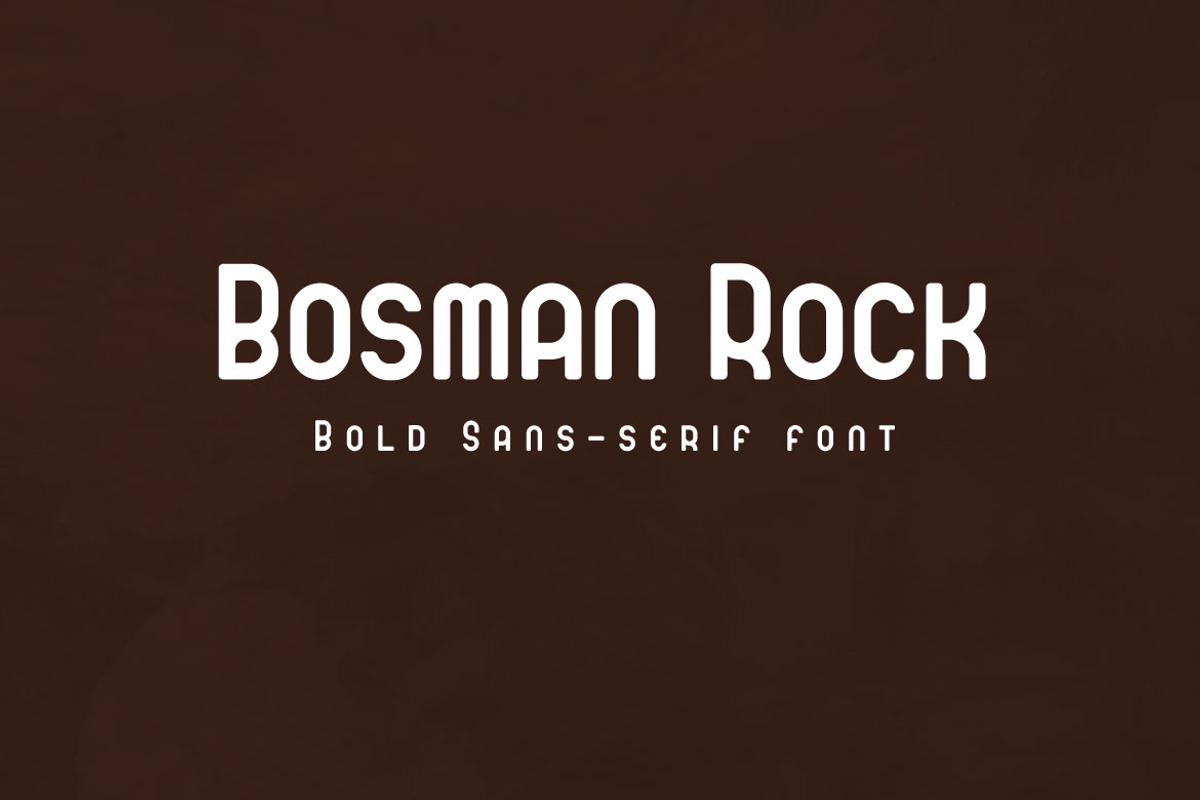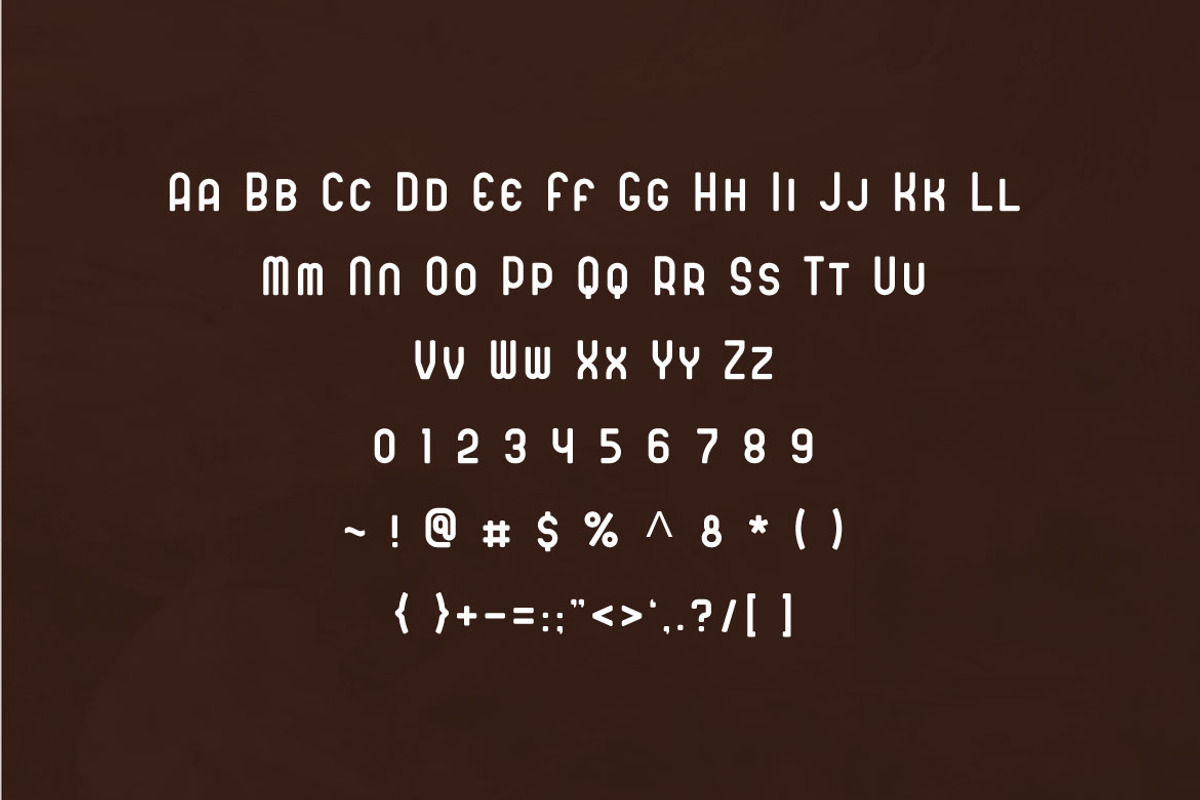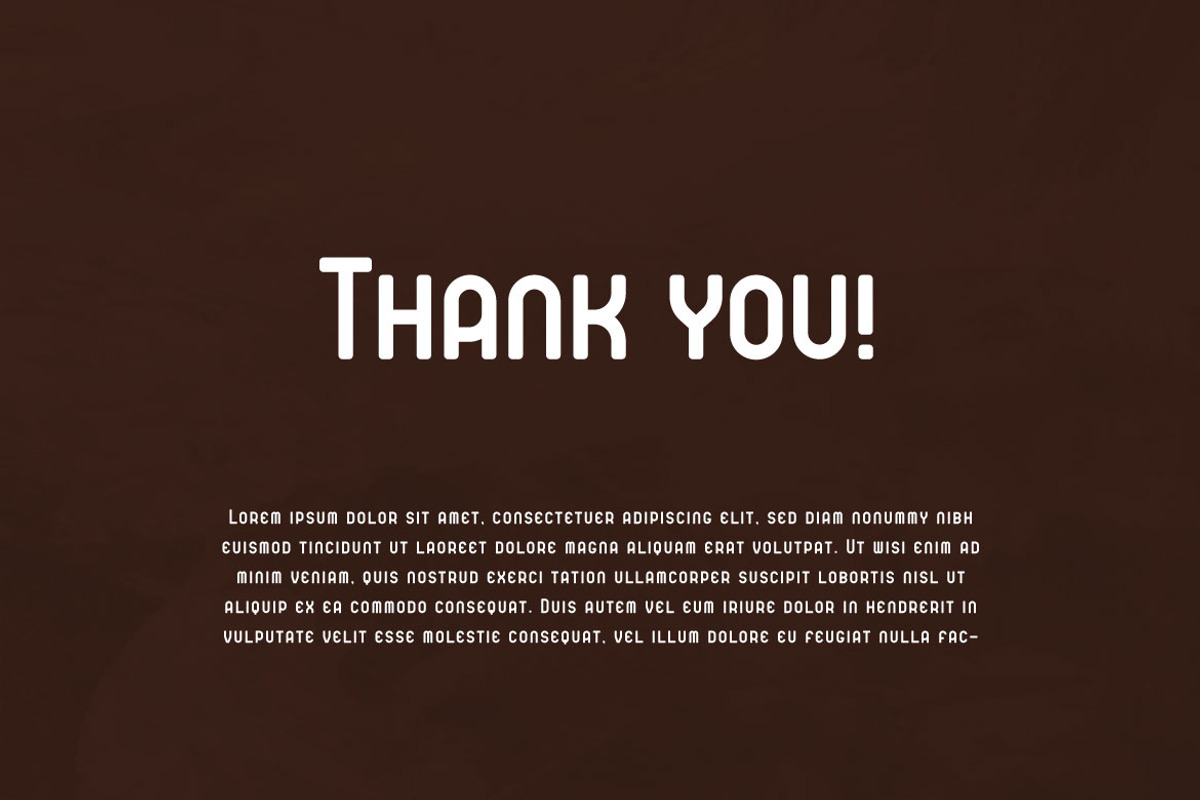
Bosman Rock - Rounded Bold Font
If you are looking for a simple, modern and bold font, meet Bosman Rock
Bosman Rock is perfect for any works, such as card, book title, headline of news, banner, flyer, stationery and many more. It also can be used in large-scale work.